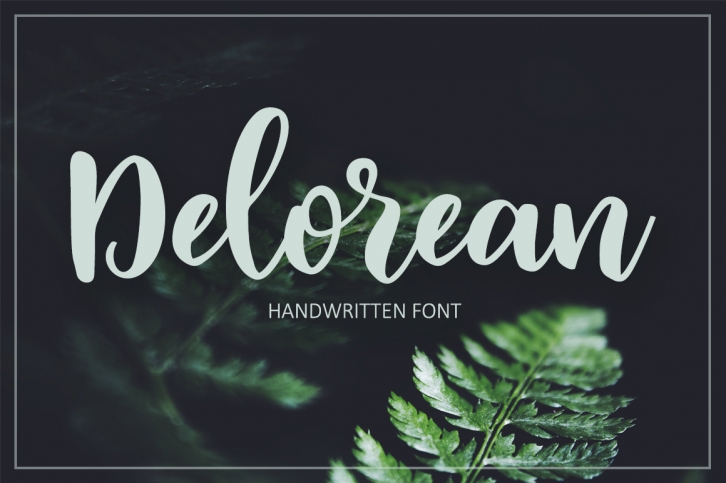
Delorean Script is a great font that was designed by Jokiranta. Imagine the amount of combinations you can create using this font! The archive is 5.85 MB and it was released on October 30, 2016. Delorean Script looks beautiful on wedding invitations, greeting cards, logos, posters, labels, t-shirt designs, logos, business cards and is perfect for use in ink or watercolor works, fashion, magazines, packaging and food menus, children's books and more!